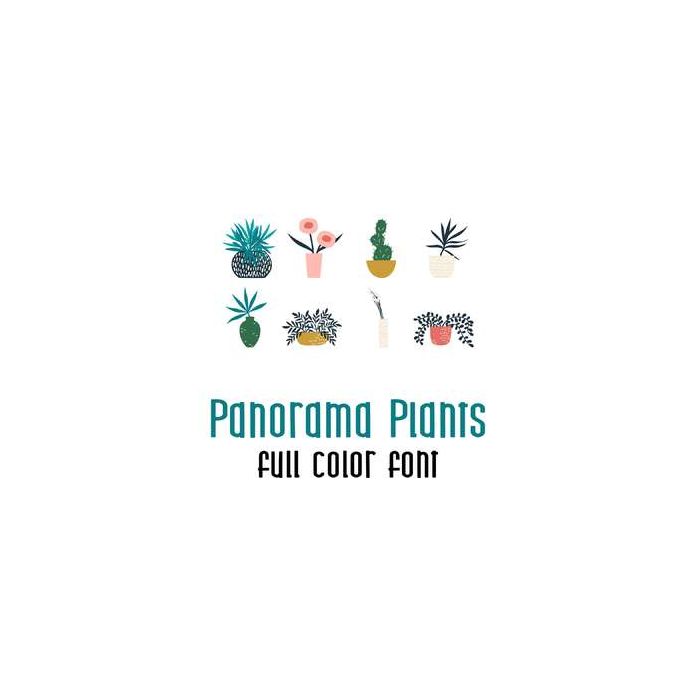
This adorable full color doodlebat font features fun modern plants. Perfect for cards, crafts, gifts, decor, scrap book pages, planner stickers and more!